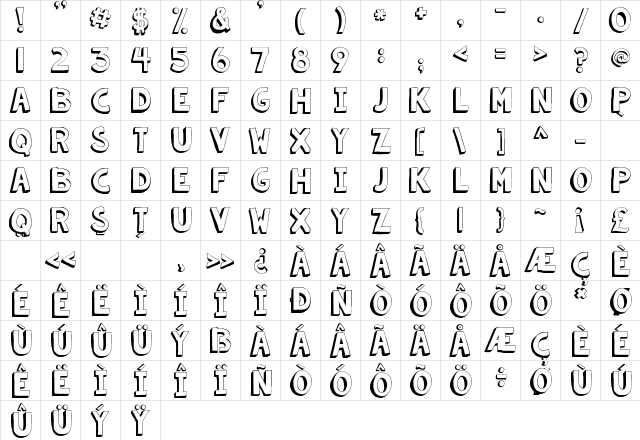
KG Summer Sunshine Shadow Regular
Design Context for KG Summer Sunshine Shadow Typeface
KG Summer Sunshine Shadow brings ornamental detail and strong personality to headlines and identities, where visual impact matters more than quiet functionality.
Font Pairing: Pair with a clean neutral sans-serif for body copy to let KG Summer Sunshine Shadow's character lead without overwhelming the composition.
Pro Tip: Use KG Summer Sunshine Shadow exclusively at display sizes — it was designed to be seen, not read at length. Let a neutral companion handle body copy.